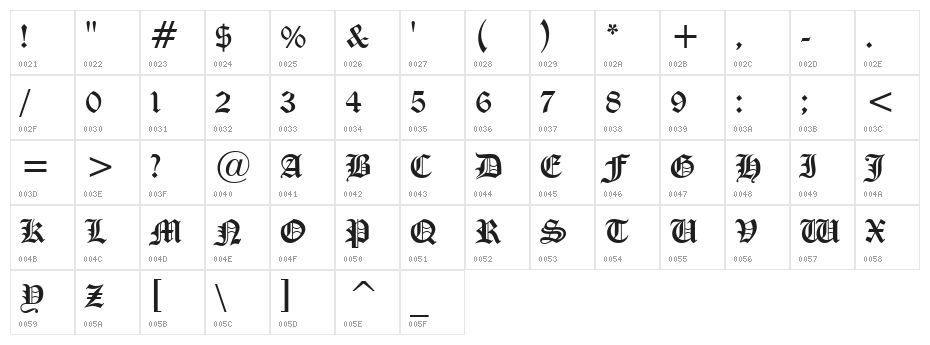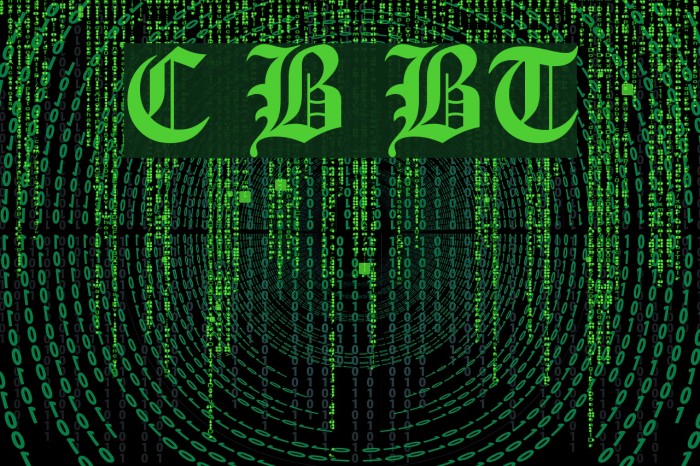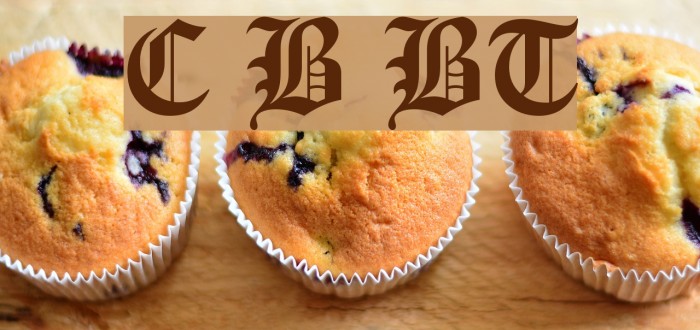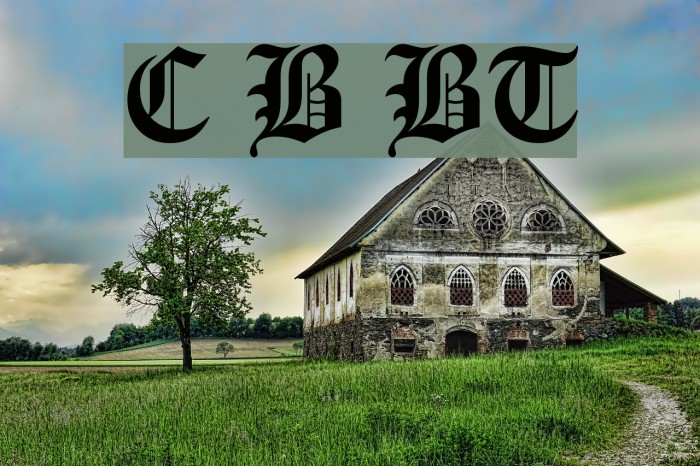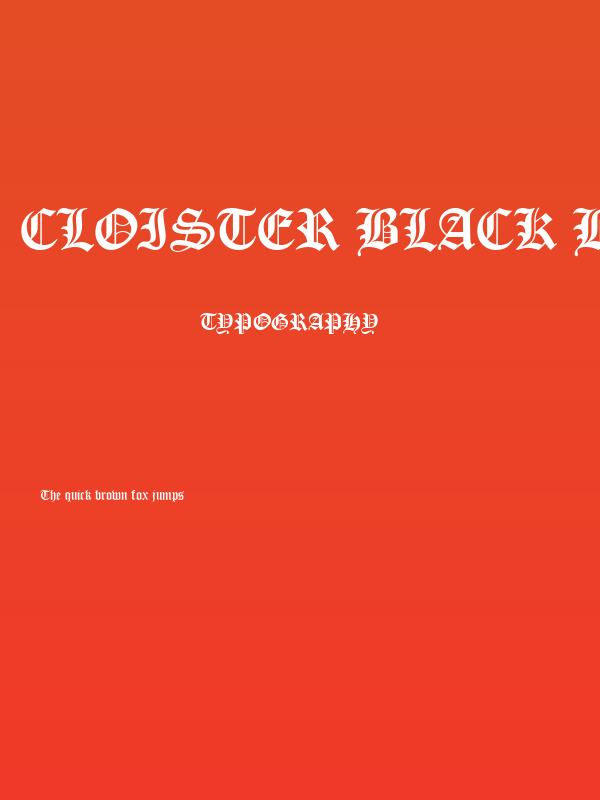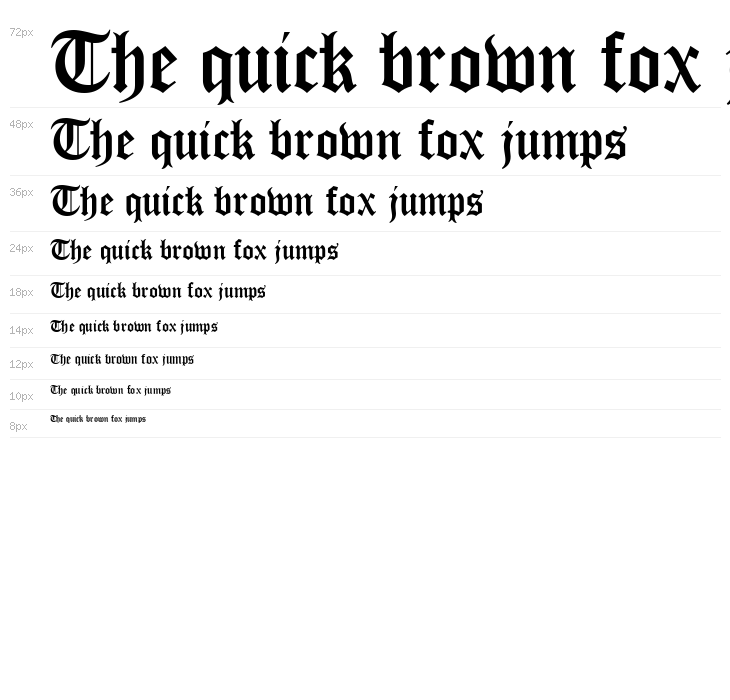
Cloister Black BT Font
Cloister Black BT Description
This font embodies a classic blackletter style, characterized by its intricate and ornate letterforms. The uppercase letters feature sharp, angular lines with decorative flourishes, while the lowercase letters maintain a consistent, bold appearance. The numerals are equally stylized, matching the overall aesthetic with their gothic influence. Special characters are designed with the same attention to detail, providing a cohesive look across all glyphs. This font's historical and traditional feel makes it suitable for projects that require a touch of elegance and formality.
| Proposed Projects | Ideal for wedding invitations, certificates, historical documents, and branding that requires a traditional or formal touch. |